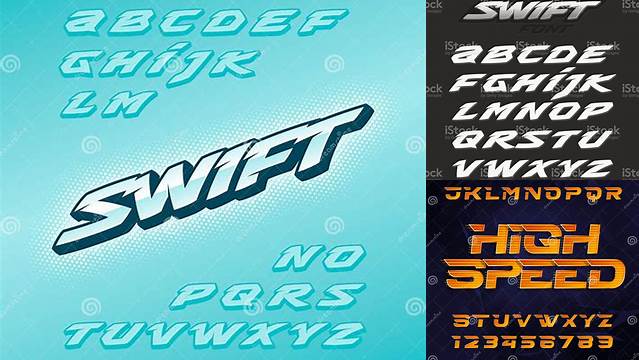
Swift Futuristic Font: Free Download For Bold Designs
Hey there, font fanatics! Are you ready to inject some serious visual power into your projects? If you're looking for a typeface that screams swiftness, strength, and a touch of the future, then you're in the right place. We're diving headfirst into the world of swift, fast, strong, futuristic fonts, and the best part? They're available for free download! Forget those clunky, outdated fonts – it's time to upgrade your design game. Whether you're a seasoned designer, a budding entrepreneur, or just someone who loves to create, this guide is your ultimate resource for discovering the perfect futuristic font. We'll explore a variety of styles, from sleek and minimalist to bold and attention-grabbing, ensuring you find the ideal match for your vision. So, buckle up, and get ready to explore the exciting universe of fonts that will take your designs to the next level.
H2: Embrace the Speed: Why Choose a Swift Font?
When we say swift font, we're not just talking about a pretty face. We're talking about a typeface that conveys a sense of speed, efficiency, and forward momentum. Think about the logos of high-performance vehicles, tech companies, or sports brands – often, they employ fonts that subtly communicate these very qualities. A swift font is all about creating an immediate impact. It’s about grabbing the viewer's attention and making them feel like they're on the cutting edge. But how do you know if a font truly embodies that swift essence? It's about the details. Look for fonts with clean lines, sharp angles, and a sense of controlled energy. In other words, elements like dynamic curves, and a sense of streamlined flow are crucial. Consider the context of your design. Is it a website promoting a new tech gadget? A poster advertising a futuristic event? Or perhaps a social media campaign for a fast-growing startup? In each scenario, a swift font is there to make a statement. It tells your audience that you're not afraid to lead, and that you understand the importance of speed and innovation in today's world. When searching for a swift font that really fits, you can also consider the weight and the style. A bold, condensed font might be perfect for headlines, while a lighter, more elegant font could be used for body copy. The key is to create a visual hierarchy that supports your overall message. By strategically using different weights and styles, you can guide the viewer's eye and create a dynamic and engaging design. So, choose wisely. This first impression could be the difference between a project that gets noticed and one that fades into the background.
H3: Characteristics of a Great Swift Font
Let's get specific, shall we? What exactly makes a swift font stand out from the crowd? It's all about the subtle details and the overall impression it creates. First and foremost, a great swift font will often feature clean, uncluttered letterforms. Think of a race car's aerodynamic design – every line serves a purpose, and there's no unnecessary ornamentation. Similarly, a swift font focuses on the essential elements, creating a sense of efficiency and precision. Another key characteristic is the use of angles and sharp edges. These design elements evoke a sense of energy and forward movement. Think about the way a sharp arrow pierces its target – a swift font aims to achieve a similar effect, drawing the viewer's eye and conveying a sense of purpose. The use of negative space is also crucial. A well-designed swift font will cleverly utilize the space around and within the letters to create a sense of openness and breathability. This not only enhances readability but also contributes to the overall feeling of speed and dynamism. Beyond the visual characteristics, the choice of weight and style plays a crucial role. A bold, condensed font might be perfect for headlines and logos, conveying a sense of power and authority. In contrast, a lighter, more elegant font could be used for body copy, creating a sense of sophistication and precision. The font’s purpose also matters. The characteristics of a swift font that you want for a technology company logo will vary. For the logo, you might want a bold font with angles for a sense of innovation. The key is to strike the right balance between visual appeal and readability, ensuring that your chosen font enhances your message rather than detracts from it. Now go get that font.
H2: The Power of Speed: Fast Fonts and Their Impact
When it comes to visual communication, speed can be a game-changer. Fast fonts tap into this power, delivering a message with both efficiency and flair. They're not just about the aesthetic; they influence how viewers perceive your brand. A well-chosen fast font instantly communicates qualities like innovation, efficiency, and dynamism. The impact can be immediate. Imagine a website designed to sell high-speed internet. The message you will be giving will be significantly boosted by a font that communicates its speed. If the font is slow and clunky, then your viewers will immediately think your internet provider is too. It's a great way to create trust in your consumers. Fast fonts often become the cornerstone of a brand identity. The brand's overall design, the feeling viewers get, and the message it sends all come from how the font is. It gives an entire personality, tone, and direction to how you are perceived. Fast fonts aren't just for tech companies or sports brands. Any business that wants to convey a sense of energy, forward-thinking, or efficiency can benefit from using these fonts. The key is to choose the right font for your specific needs and audience, ensuring that it complements your brand's overall message and values. Think about the feel of your brand. The use of a fast font is a tool to get that brand identity across. When we look at the logos of modern companies, it can be seen how powerful this tool is. Choosing the right fast font is essential. It can be the best way to make that first impression on potential customers, and establish your brand identity. Don't underestimate the power of fast fonts. They're a dynamic tool in your design toolbox.
H3: Fast Fonts: A Deeper Dive into Design Principles
Let's get deeper into the principles that define a fast font. It's all about the underlying design decisions that contribute to the perception of speed. First, the construction of the letterforms. Fast fonts often feature streamlined, aerodynamic shapes. This is like a race car's sleek curves that cut through the air. Think about how the letters are designed. Are the shapes clean and uncluttered? Are the curves fluid and flowing? A fast font will have this same sense of smooth, purposeful design. The use of angles and sharp edges is another critical element. These design choices introduce a sense of energy and dynamism, similar to the impact of a lightning bolt. Fast fonts are often not flat. You should often see elements of slant or tilt. A well-designed fast font will leverage these elements to suggest movement and direction. The weight and style also play a crucial role. A bold, condensed font can convey a sense of power and strength, while a lighter, more italicized font might emphasize speed and agility. It's important to create a visual hierarchy that supports your overall message. The font you choose is meant to communicate information to the viewer, and the overall goal is to communicate that message. The design principles also include the use of negative space and kerning. Fast fonts often use this space strategically, both inside and around the letters, to create a sense of breathability and speed. It's a visual tool to optimize communication. Fast fonts have a strong personality, and it's a good idea to know that personality before you start using it. Remember to consider the context of your project. The logo, website, or promotional materials are where you're communicating information. So when you start using a fast font, you want to consider all the different visual aspects.
H2: Strength in Every Stroke: Why Choose a Strong Font?
Strong fonts are the workhorses of the design world. They convey reliability, stability, and a sense of unwavering confidence. They're the visual equivalent of a firm handshake – instantly communicating your brand's trustworthiness and authority. A strong font creates a solid foundation for your message, ensuring that your audience takes you seriously. It's about more than just aesthetics; it's about sending the right message. It is about getting the viewer to trust you. The message and tone is influenced by the typeface you use. This is especially true in instances where you need to establish trust. It needs to be something that your audience can rely on, and something that sends the right message to those who are consuming it. Think about law firms, financial institutions, or established brands with a long history. They often use strong fonts to project an image of strength and stability. This visual impact is critical, especially in environments where credibility and trust are paramount. The choice of a strong font has a significant impact on how your brand is perceived. A strong font adds a sense of reliability. It tells viewers they can trust you. But how do you choose a strong font that suits your needs? It depends on the needs of your project. The font needs to be a perfect fit for your project's goals. Do you want a font that is straightforward and timeless? Do you want a font that is a bit more modern but still strong? The key is to find the right balance between your brand identity and the message you want to convey.
H3: Decoding the Characteristics of a Strong Font
Let's break down the key characteristics that make a strong font stand out. First, the weight. Strong fonts often feature a bold or heavy weight, which creates a sense of solidity and authority. This is the equivalent of a strong foundation. The font needs to be heavy so the viewers understand they can trust it. Look for typefaces with thick strokes. The next characteristic to consider is the structure of the letters. Strong fonts are often well-defined and have a clear, easily readable structure. This is critical for ensuring your message is easily understood. A strong font uses all the structural elements of the typeface. This includes the shape of the letters, how the curves are designed, and how everything is proportioned. The details matter, but also the style matters. The style also influences how the strong font is perceived. This can be anything from a classic serif to a modern sans-serif. Each style brings its own set of visual characteristics to the table. Serifs, for example, can add a sense of tradition and elegance, while sans-serif fonts may come across as more contemporary and straightforward. To create a visual balance, it's crucial to consider the spacing between the letters and words. A strong font needs to maintain readability. You can also use other design elements to support the use of your strong font. These elements should match your overall design philosophy. Understanding these elements can help you make an informed decision. It will influence how your design impacts others. It also helps you create the impression you're looking for. Your ultimate goal is to pick a font that communicates strength and stability.
H2: Futuristic Fonts: Design for the Future
Futuristic fonts are more than just typefaces; they are glimpses into tomorrow. They represent innovation, technology, and the ever-evolving landscape of design. They instantly capture the imagination, suggesting a world of possibilities and technological advancement. When you choose a futuristic font, you're making a statement about your brand. You're saying you are forward-thinking. You can easily see how they are used. Tech companies, software developers, and creative agencies all recognize the power of a futuristic font. These fonts have a unique ability to captivate. You want to grab viewers' attention, and bring them into your world. Think about the sleek lines of a spaceship or the digital interfaces of a sci-fi movie. The futuristic font is supposed to evoke the same feeling of wonder and excitement. But what truly defines a futuristic font? It is not so easily defined. Often, a futuristic font goes against the norm. Often the design of the font is something that's never been seen before. This makes the design an excellent way to create an impression. It can be a way to create a brand identity. Whether it's for a website, a logo, or a marketing campaign, it needs to tell a story and evoke a sense of the future. So how do you choose the right futuristic font? You must match the typeface to your vision. This means considering factors like the overall style, the weight, and the intended audience.
H3: Key Elements of Futuristic Font Design
Let's dissect the key elements that characterize a futuristic font and define its distinctive appeal. One of the primary features is the use of geometric shapes and clean lines. Imagine the sleek surfaces of a modern skyscraper or the precise angles of a high-tech gadget – a futuristic font often draws inspiration from these forms. This creates a sense of order, efficiency, and technological advancement. Another important aspect is the incorporation of unconventional letterforms. Futuristic fonts frequently push the boundaries of traditional typography. They might feature unique angles, or even a digital-inspired look. The letters are an evolution of the alphabet. The letterforms can be inspired by a number of things. These are all ways that a futuristic font is characterized. Another design feature is the use of negative space. Just as the sky or the darkness of space itself, a futuristic font will make use of this to create the impression of something infinite. Finally, the choice of colors and gradients can make a difference. The colors can evoke the impression of a digital interface, which also makes it feel futuristic. It’s all about making the letterforms fit the tone of your brand. This will create a sense of alignment. When you choose a futuristic font, you are deciding the tone for your brand. The goal is to achieve a visual aesthetic that is innovative and forward-thinking. The aim is to inspire. It’s a great way to stand out from the crowd.
H2: Designing with Swift, Strong, and Futuristic Fonts: Best Practices
When it comes to incorporating swift, strong, and futuristic fonts into your designs, success lies in understanding how to use them effectively. It's not just about choosing a cool-looking typeface, but about making intentional design choices. The first thing is to think about the context of your design. Ask yourself: